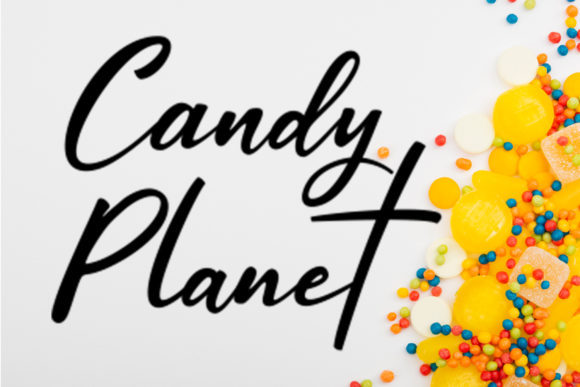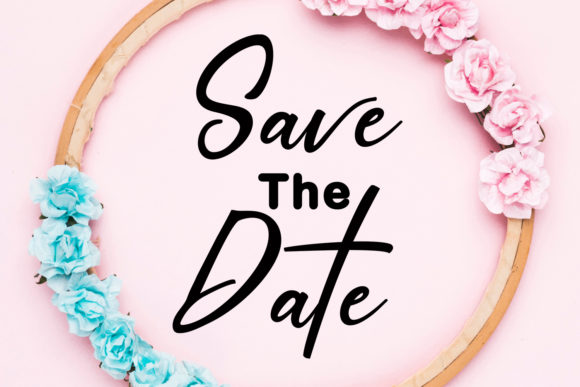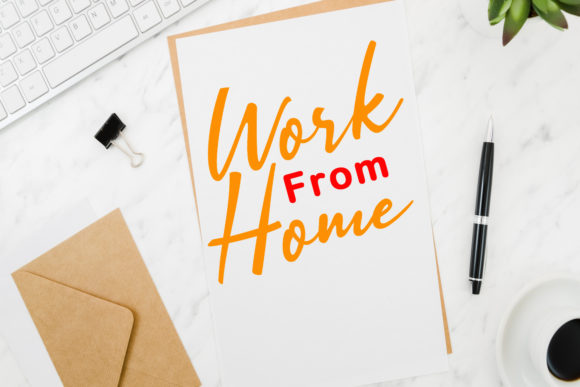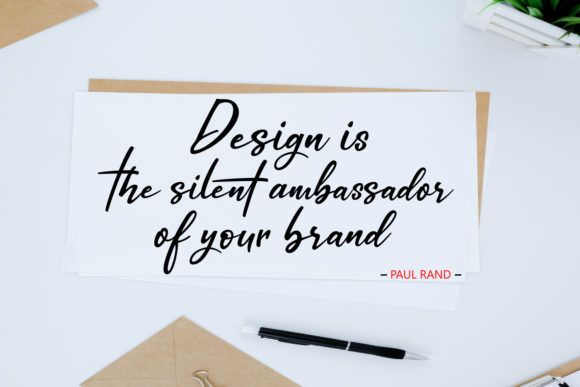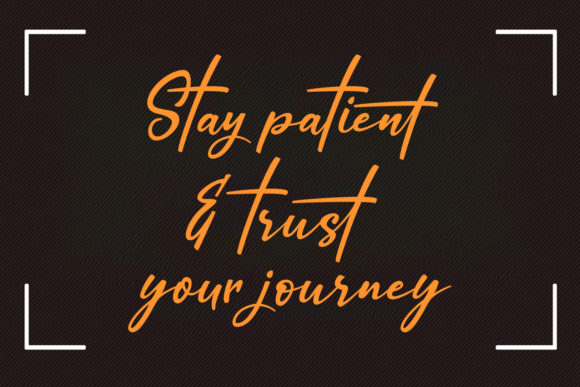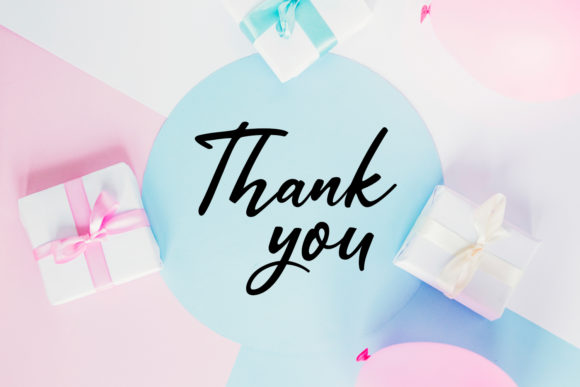
Introducing Esteh Font: The Modern Brushed Handwritten Font for Crafters and Designers
Are you a designer or crafter looking for a font that can add a touch of modern elegance and sweetness to your projects? Look no further than Esteh Font, a trendy and versatile brushed handwritten font that’s perfect for elevating your crafts. In this article, we’ll dive into the features and benefits of Esteh Font, and explore how it can be used to take your designs to the next level.
What is Esteh Font?
Esteh Font is a modern brushed handwritten font that’s designed to bring a touch of sophistication and whimsy to your designs. With its smooth, flowing lines and delicate brushstrokes, Esteh Font is perfect for creating beautiful and eye-catching projects. Whether you’re working on a DIY craft, a branding project, or a digital design, Esteh Font is sure to impress.
Key Features of Esteh Font
So, what makes Esteh Font so special? Here are just a few of its key features:
- Modern and trendy: Esteh Font is a modern take on traditional handwritten fonts, with a fresh and trendy vibe that’s perfect for contemporary designs.
- Sweet and elegant: With its delicate brushstrokes and flowing lines, Esteh Font adds a touch of sweetness and elegance to any project.
- Versatile: Esteh Font is a versatile font that can be used for a wide range of projects, from DIY crafts to digital designs.
- Easy to read: Despite its delicate nature, Esteh Font is surprisingly easy to read, making it perfect for use in body text as well as headings.
Benefits of Using Esteh Font
So, why should you choose Esteh Font for your next project? Here are just a few benefits of using this amazing font:
- Adds a personal touch: With its handwritten nature, Esteh Font adds a personal touch to your designs that’s hard to replicate with more traditional fonts.
- Perfect for branding: Esteh Font is perfect for use in branding projects, where you want to create a unique and memorable identity for your business or product.
- Great for DIY crafts: Whether you’re making cards, gift tags, or other DIY crafts, Esteh Font is a great choice for adding a touch of elegance and sophistication.
How to Use Esteh Font
Using Esteh Font is easy! Here are a few tips for getting started:
- Choose the right size: Esteh Font looks best when used at larger sizes, such as headings or titles. However, it can also be used for body text if you prefer a more delicate look.
- Experiment with colors: Esteh Font looks great in a wide range of colors, from bold and bright to soft and pastel. Experiment with different colors to find the one that works best for your project.
- Pair with other fonts: Esteh Font pairs well with a wide range of other fonts, from serif and sans serif fonts to script and decorative fonts. Experiment with different pairings to find the one that works best for your project.
In conclusion, Esteh Font is a modern brushed handwritten font that’s perfect for crafters and designers looking to add a touch of elegance and sophistication to their projects. With its smooth, flowing lines and delicate brushstrokes, Esteh Font is sure to impress. Whether you’re working on a DIY craft, a branding project, or a digital design, Esteh Font is a great choice for adding a personal touch and creating a unique and memorable identity.